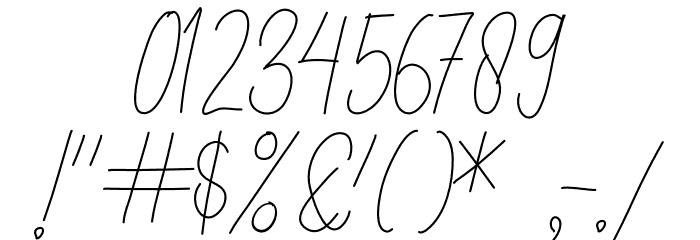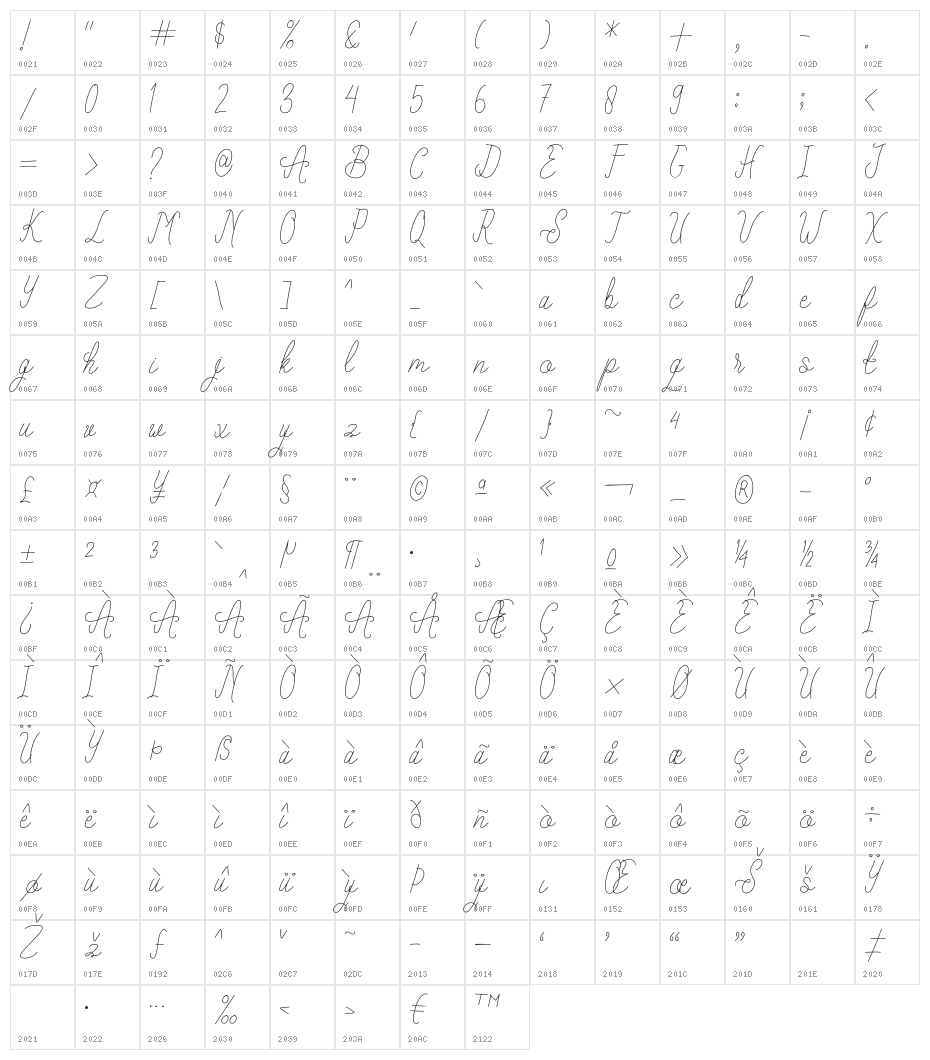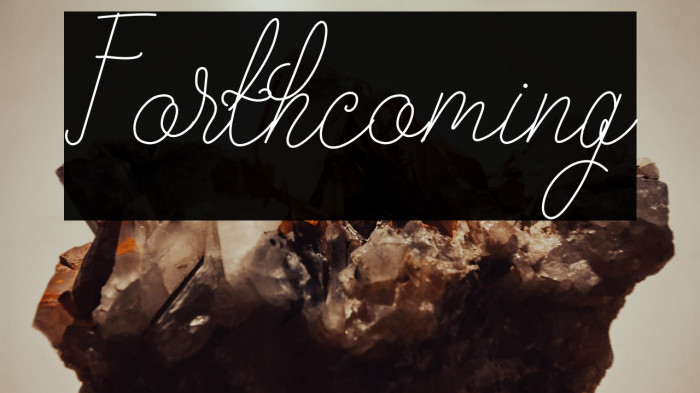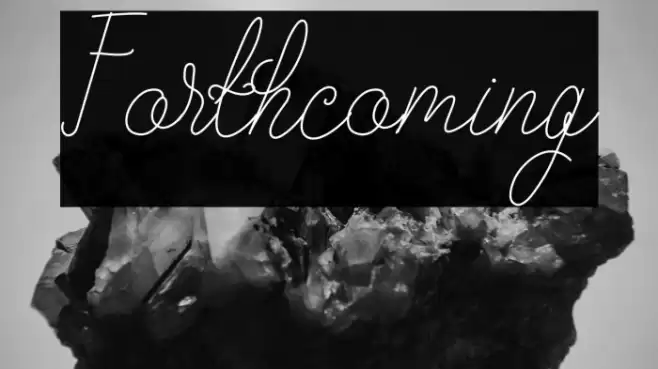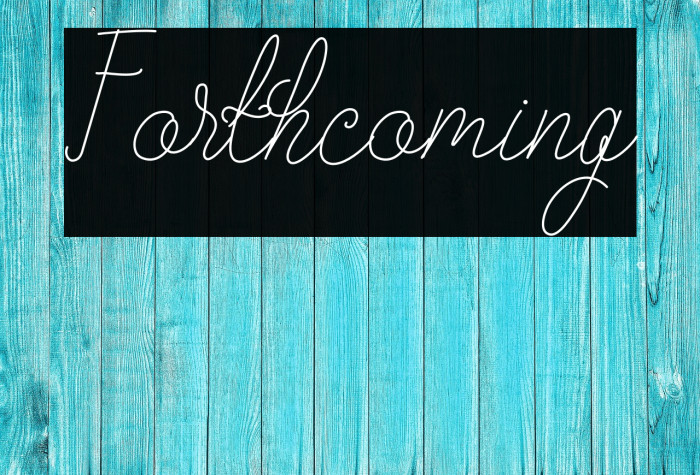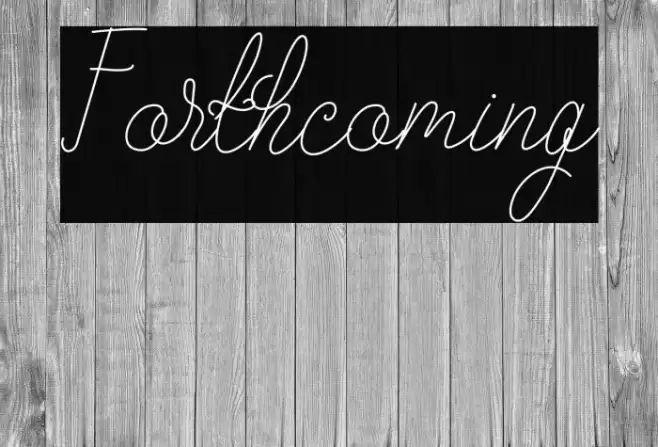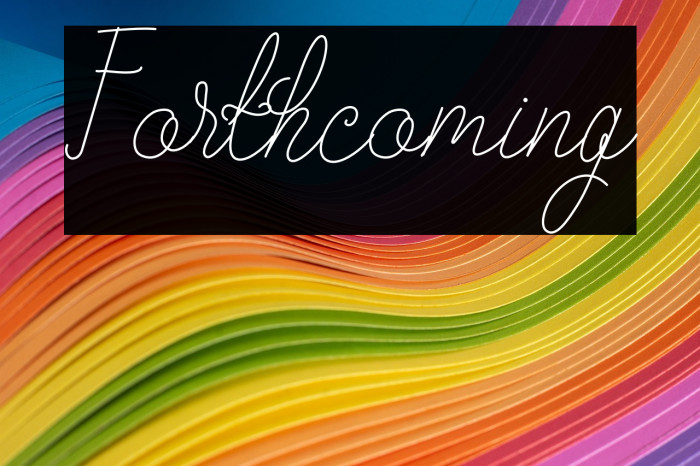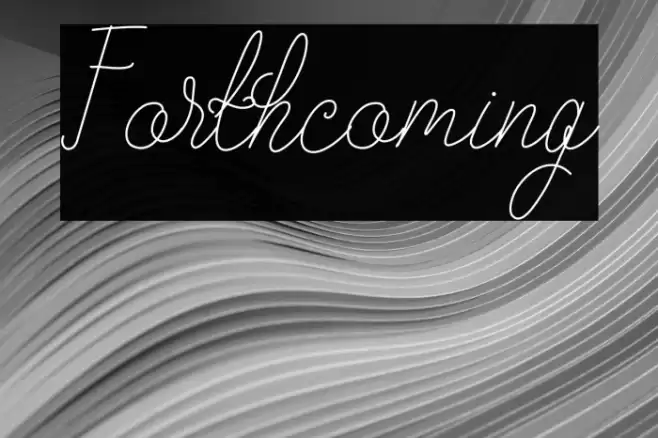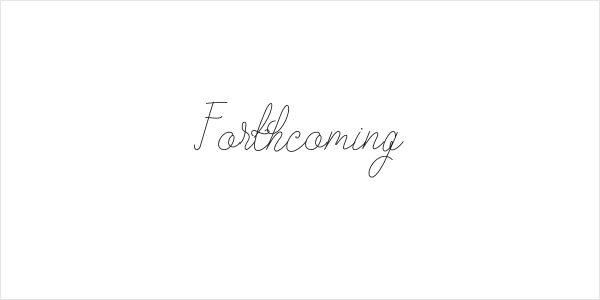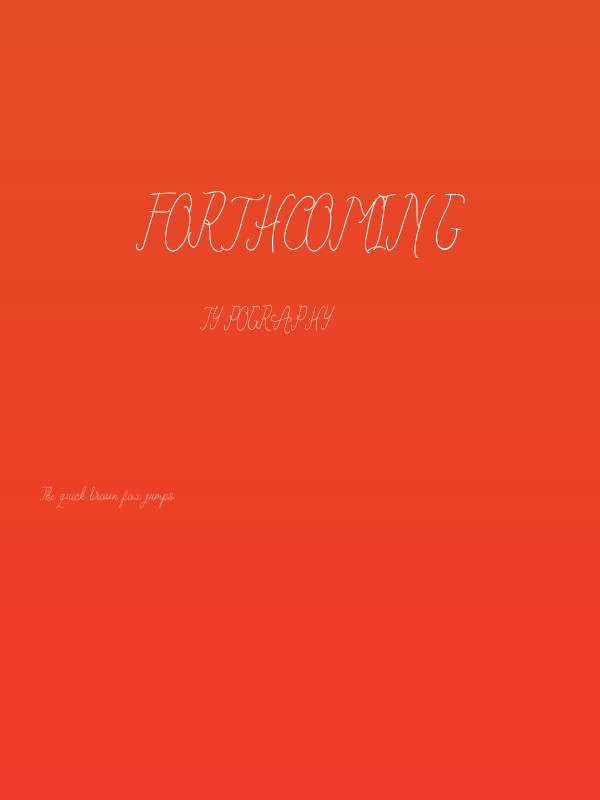
Forthcoming Font
Forthcoming Description
This elegant script font features a delicate, flowing style with thin, graceful lines that create a sense of sophistication and fluidity. The uppercase letters are tall and slender, with subtle loops and curves that add a touch of whimsy. The lowercase letters maintain a consistent flow, connecting smoothly to form a cohesive and harmonious appearance. Numbers and special characters are designed with the same attention to detail, ensuring a seamless integration with the alphabet. The overall design is airy and light, making it ideal for projects that require a touch of elegance and refinement.